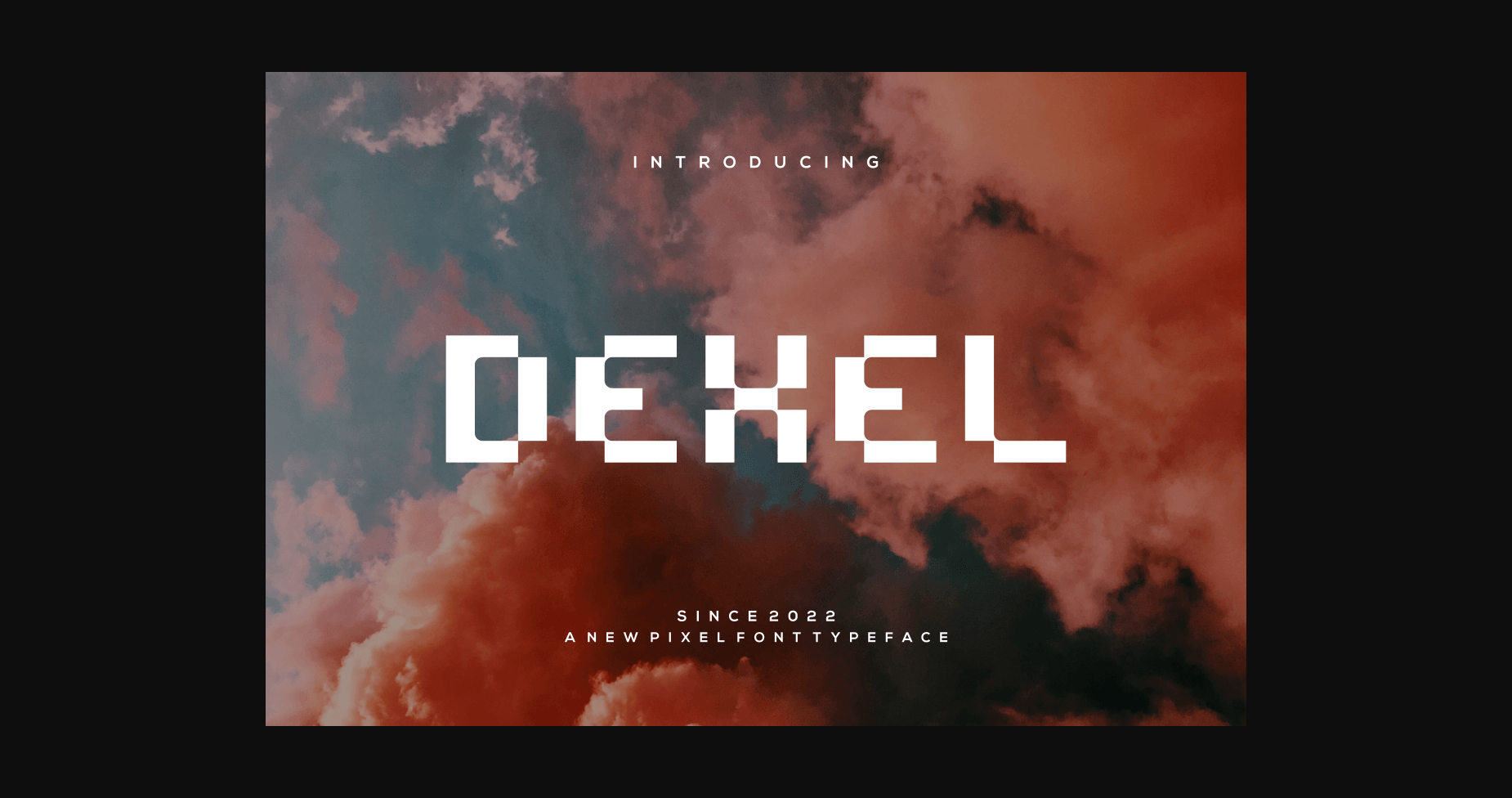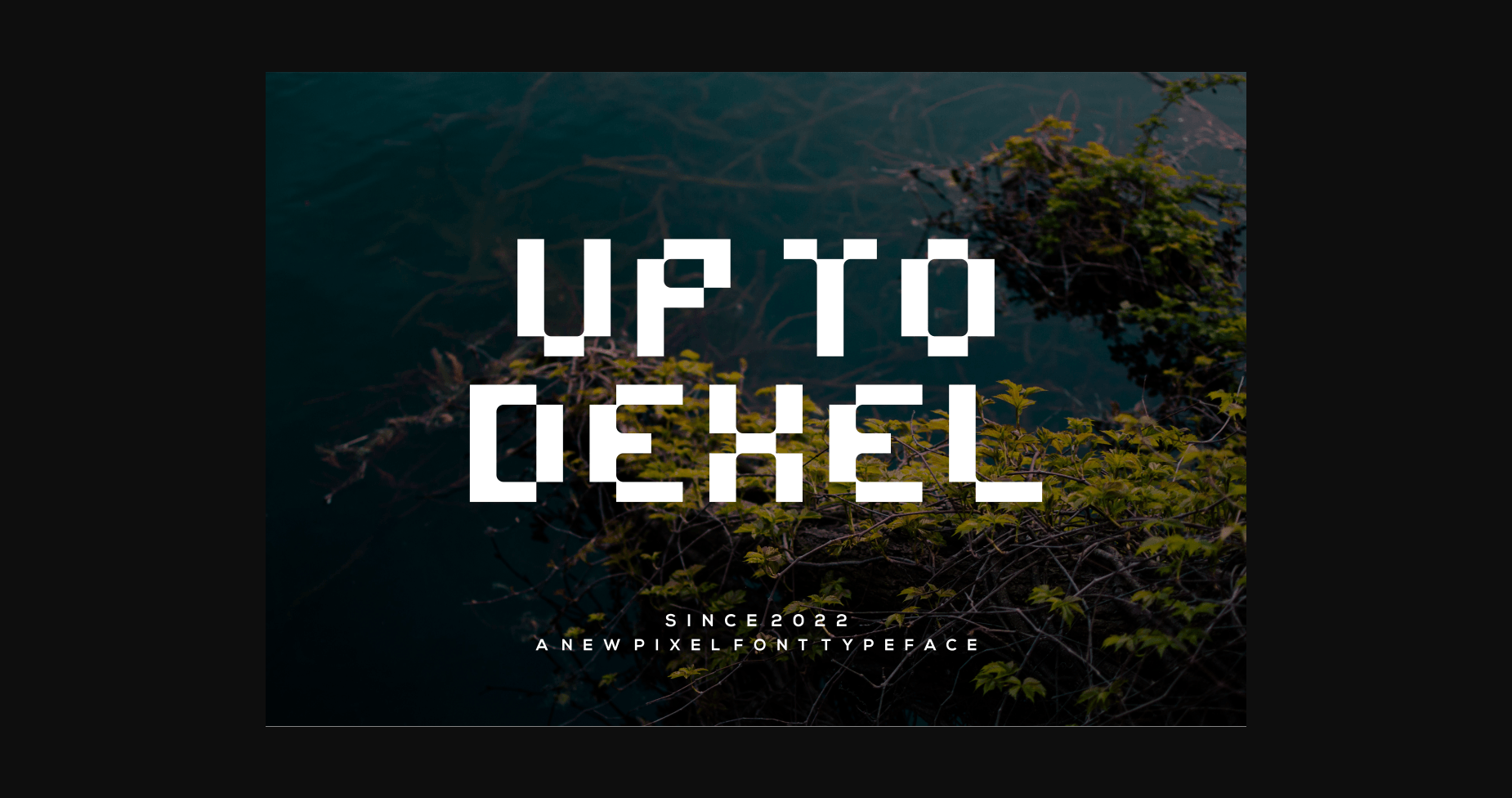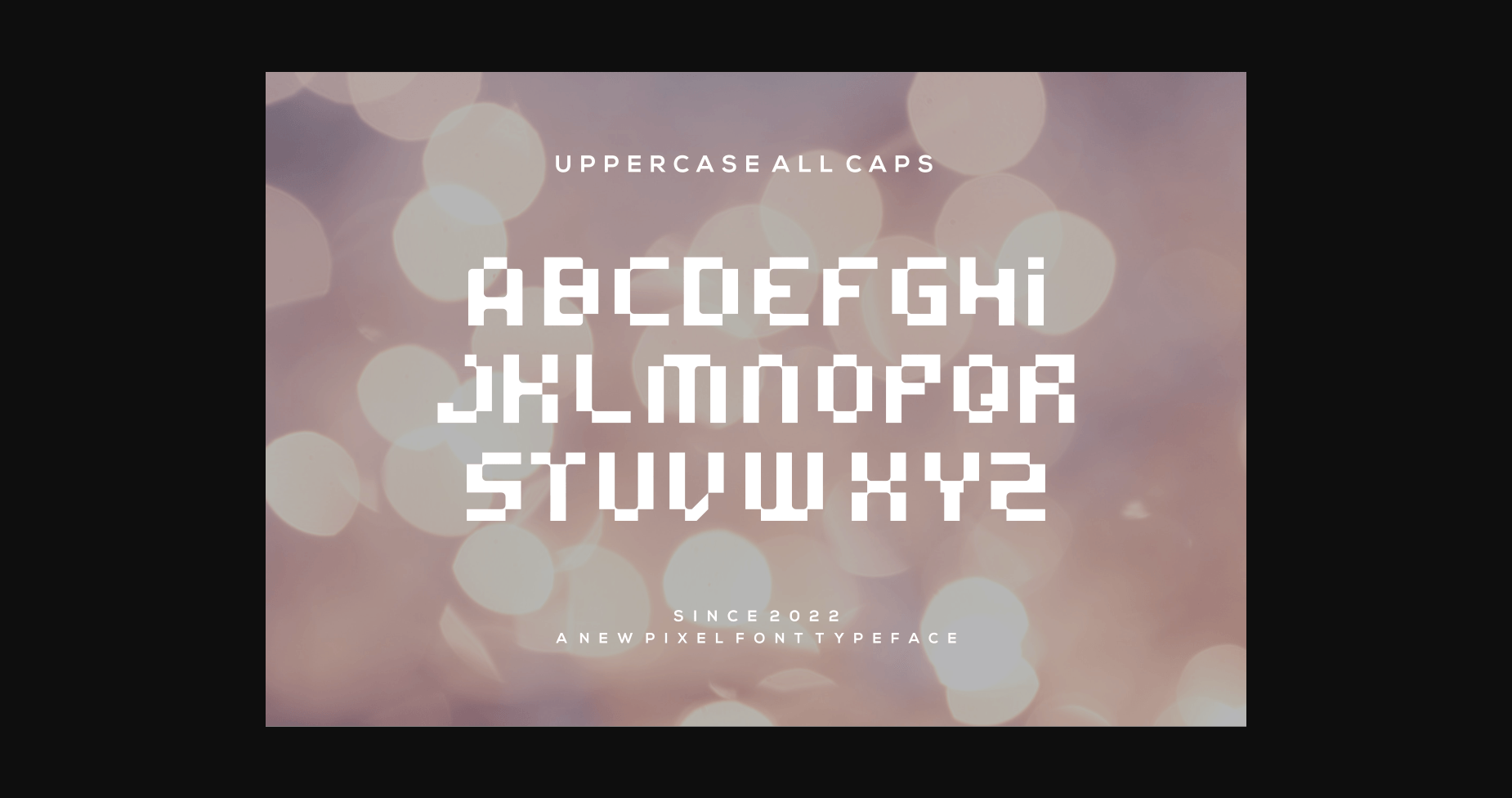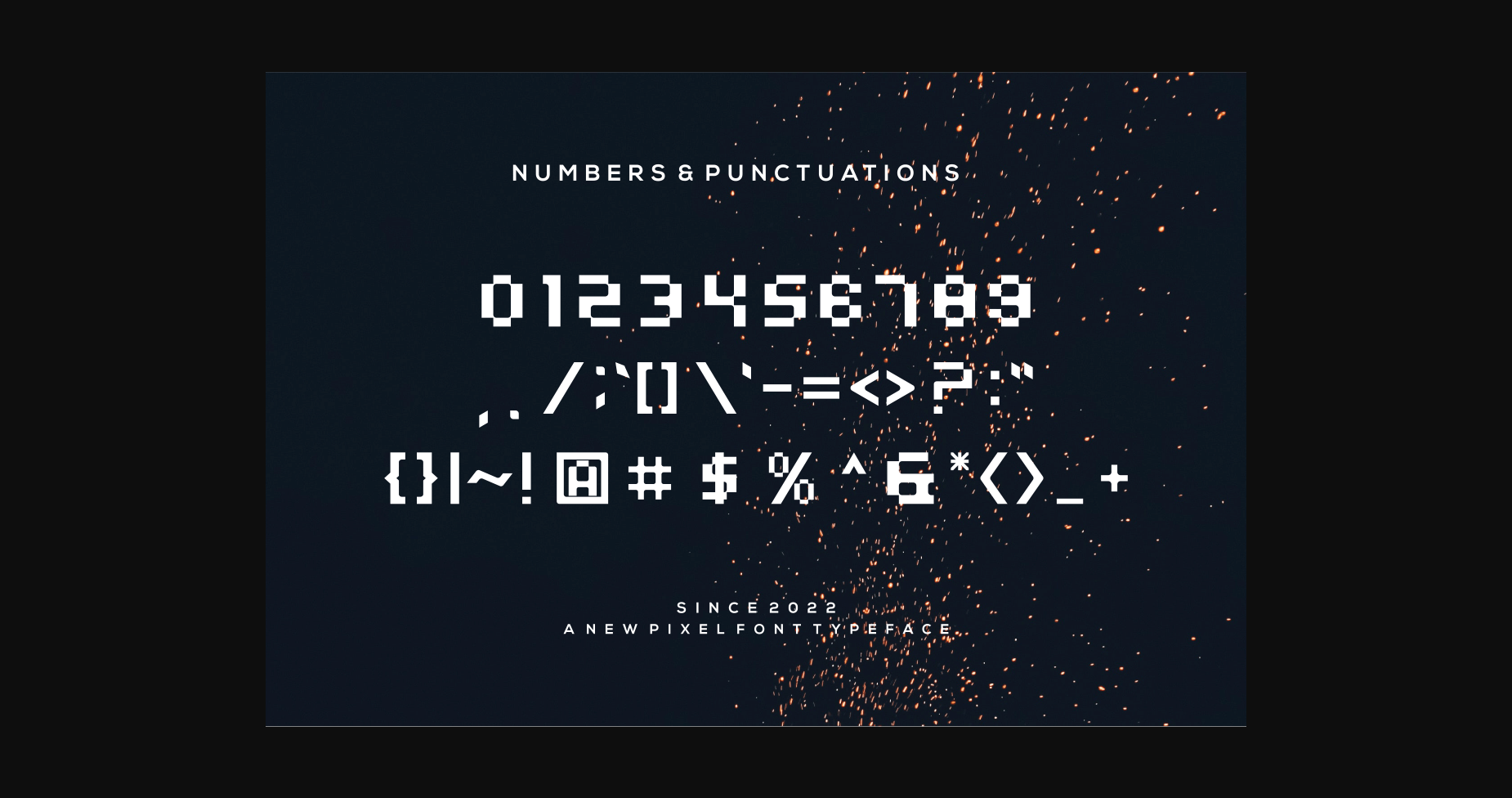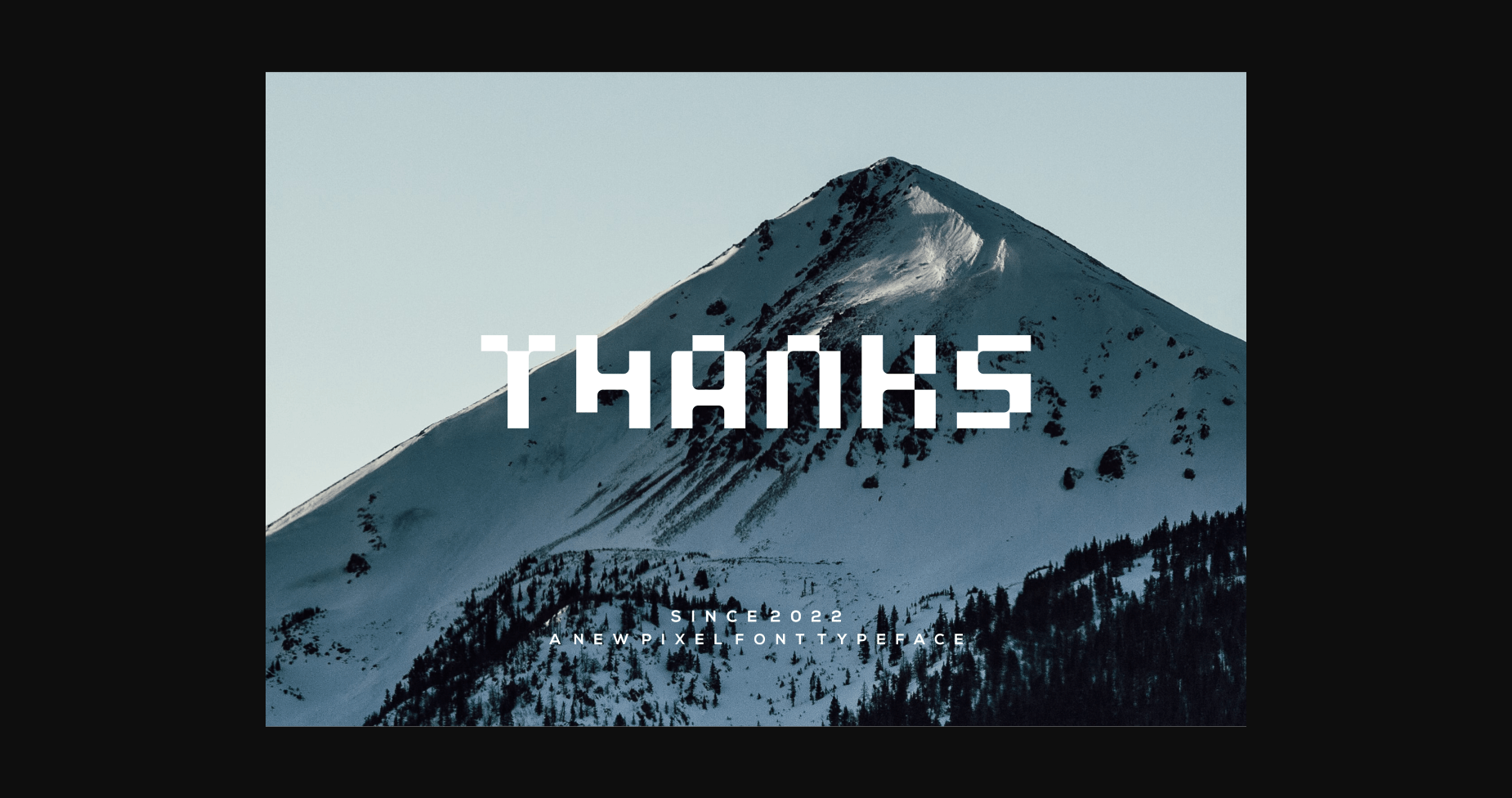
Dexel Font
About Dexel Font
Dexel is a sweet and modern sans serif font. It maintains its classy calligraphic influences while feeling contemporary and fresh. Fall in love with it and bring your projects to the highest levels!